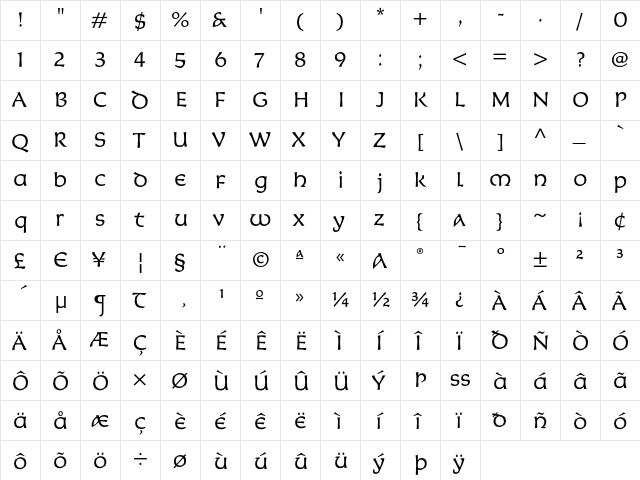
Korigan ITC Light
Design Context for Korigan ITC Typeface
Korigan ITC is a composed and adaptable typeface that performs quietly and consistently across a wide range of design contexts. Its slender proportions lend an understated elegance to any composition.